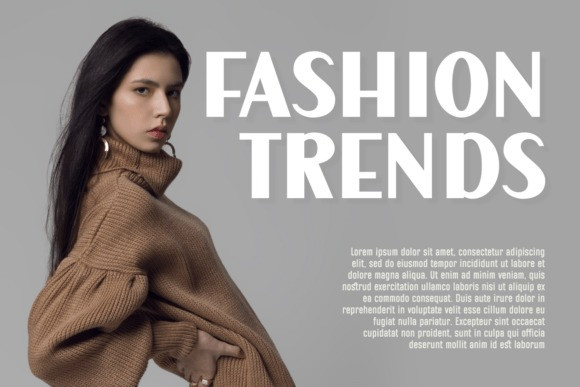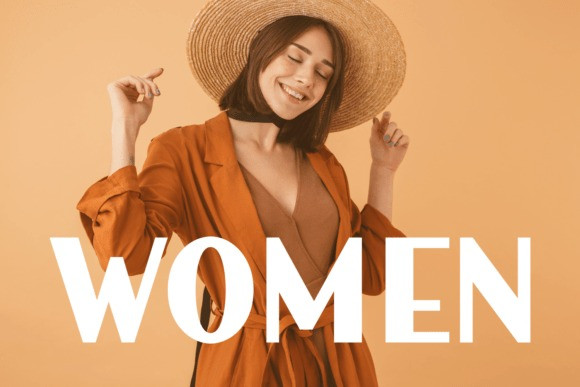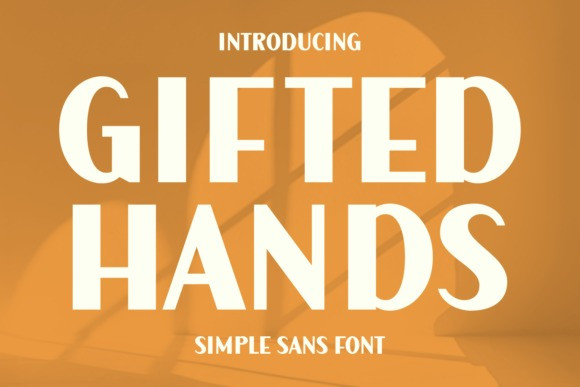
Gifted Hands Font
Gifted Hands Font – Experience the versatility and sophistication with “Gifted Hands”, a stunning Sans Serif choice that stands out with its elegant and contemporary appeal. Perfectly suited for photography accents, the font ensures your design’s authenticity stands out. Looking for an apt choice for your next book cover or magazine stint? This branding font mirrors a clean and sleek finish that seamlessly blends with any backdrop